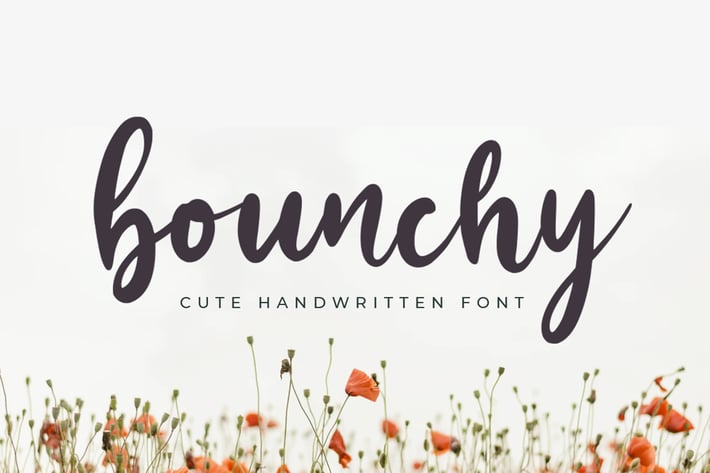
Bounchy - Bold Script Font
Bounchy is a jolly and cursive handwritten font. This gentle font will look marvelous on a variety of design ideas. It will add a customized and romantic touch to each of your creations!